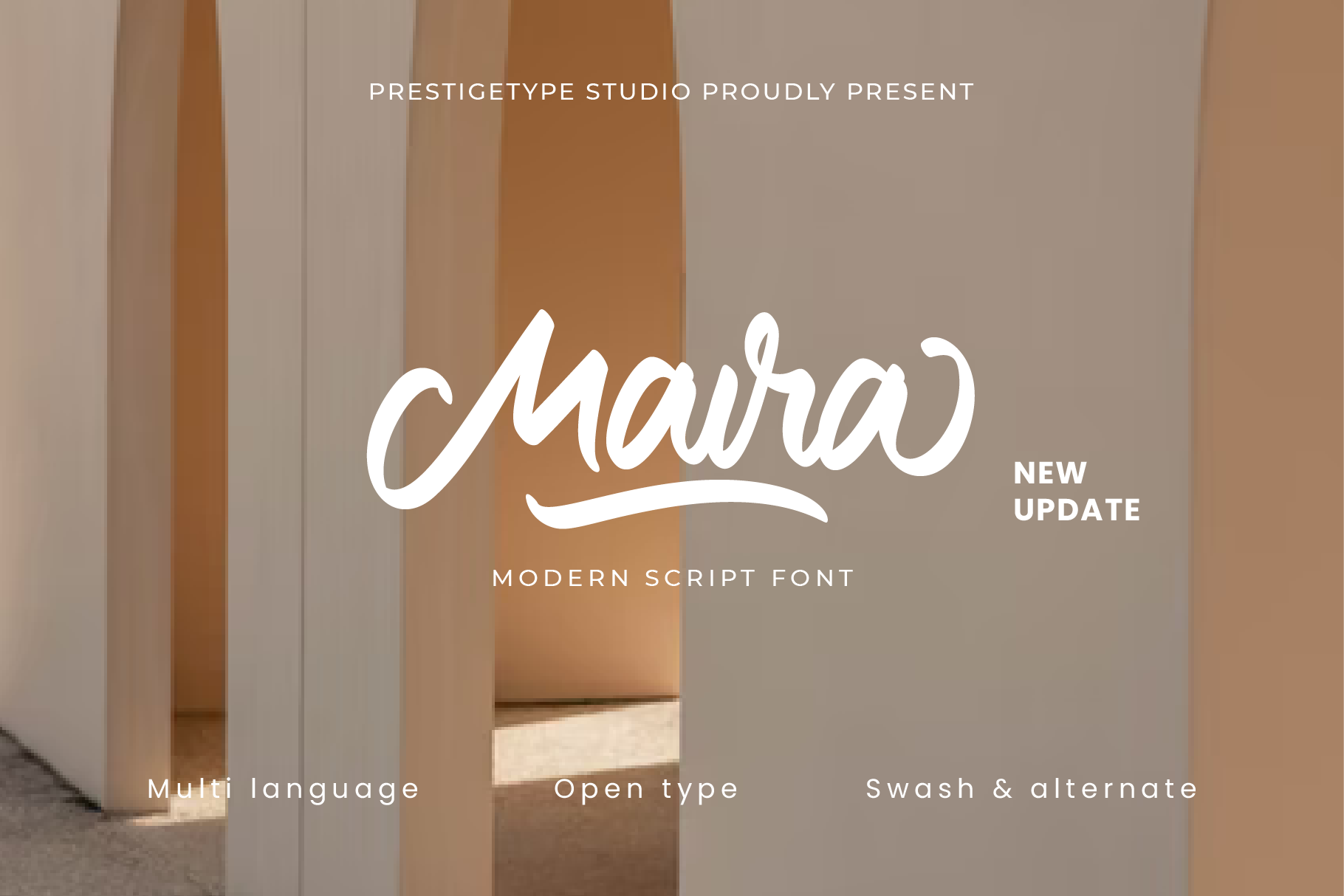
Maira Script Font (Updated!)
Beauty can change the perspective of the target audiences. Choose the right typeface to represent the beauty of your brand. Introducing Maira is a beautiful and versatile script font, with a careful touch of every single curve. Maira has a ton of alternate characters and bonus swash, making this font perfect for your branding project. It is suitable for use as a logo, Title, business cards, T-shirts, posters, printed quotes, wedding invitations, or any advertising purposes.
Maira includes:
- OpenType features